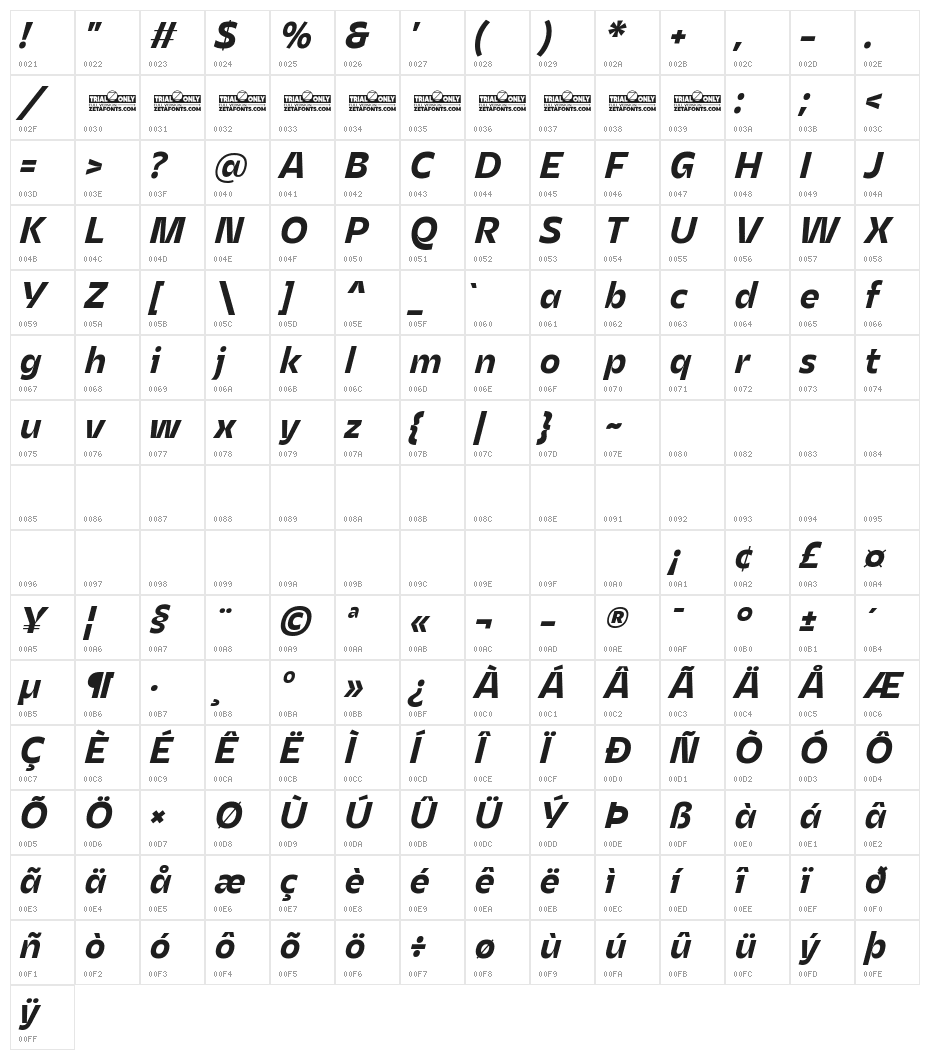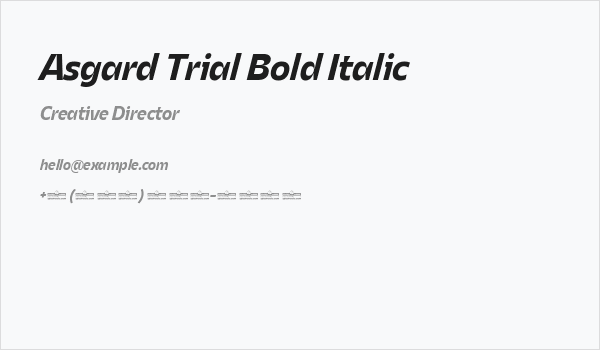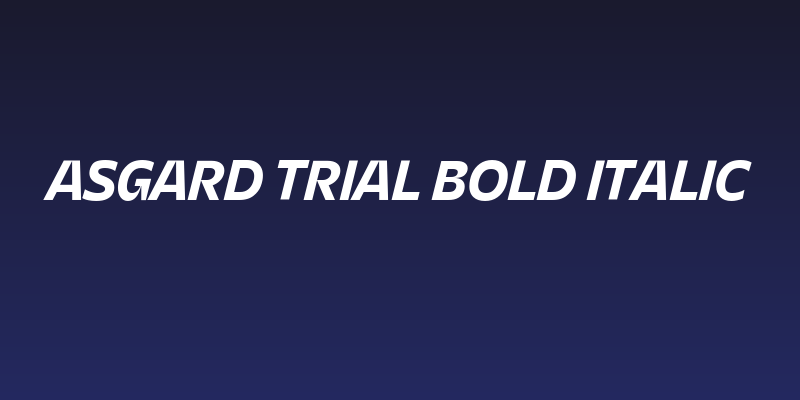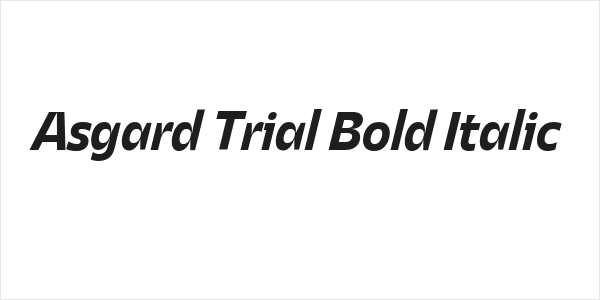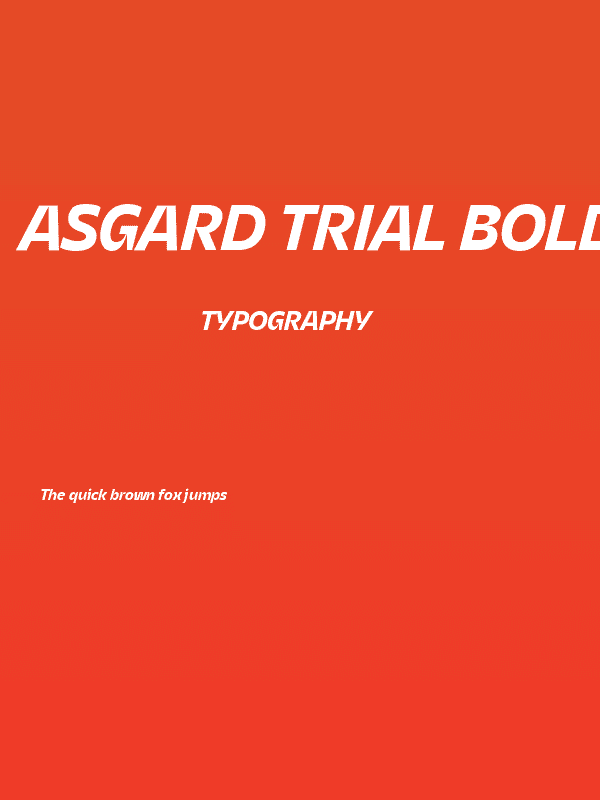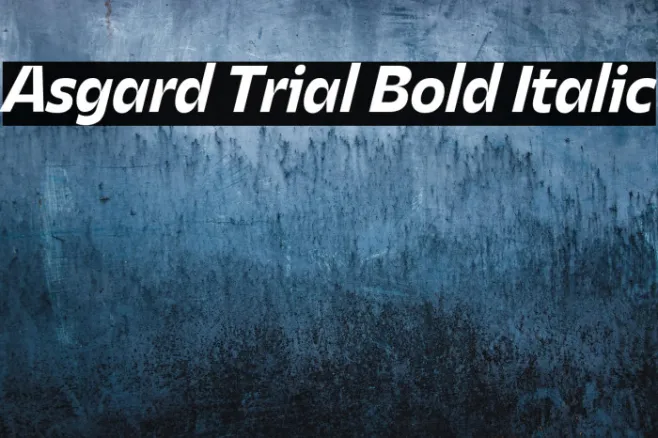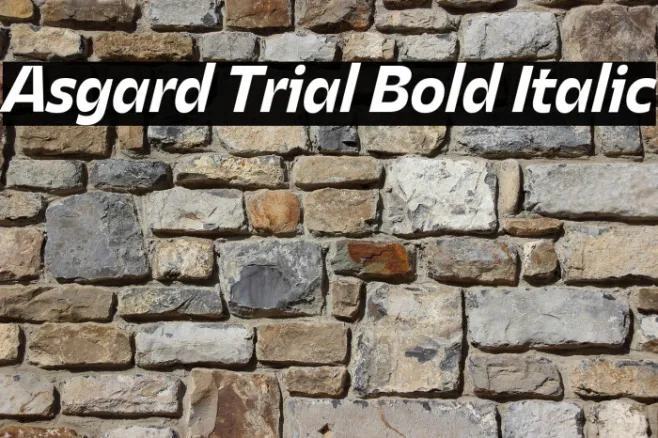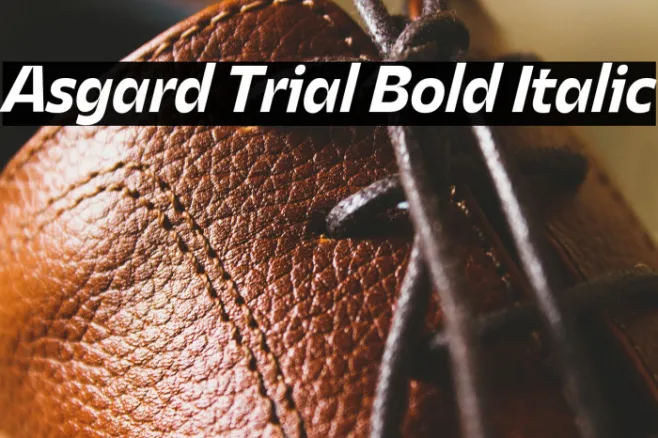
This font exhibits a bold and italicized style, characterized by its strong and dynamic presence. The letters are slanted, giving a sense of motion and energy. The strokes are thick and consistent, providing a robust and impactful appearance. The uppercase and lowercase letters maintain a uniform style, with smooth curves and sharp angles that enhance readability. The numerals and special characters are designed to match the bold and italicized theme, ensuring a cohesive look across all text elements. This font is ideal for making a statement, with its boldness and slant adding emphasis and flair.
| Use Case | Headlines, Logos, Advertising |
| Proposed Projects | Ideal for branding, advertising, headlines, and any project requiring a bold, energetic typeface. |